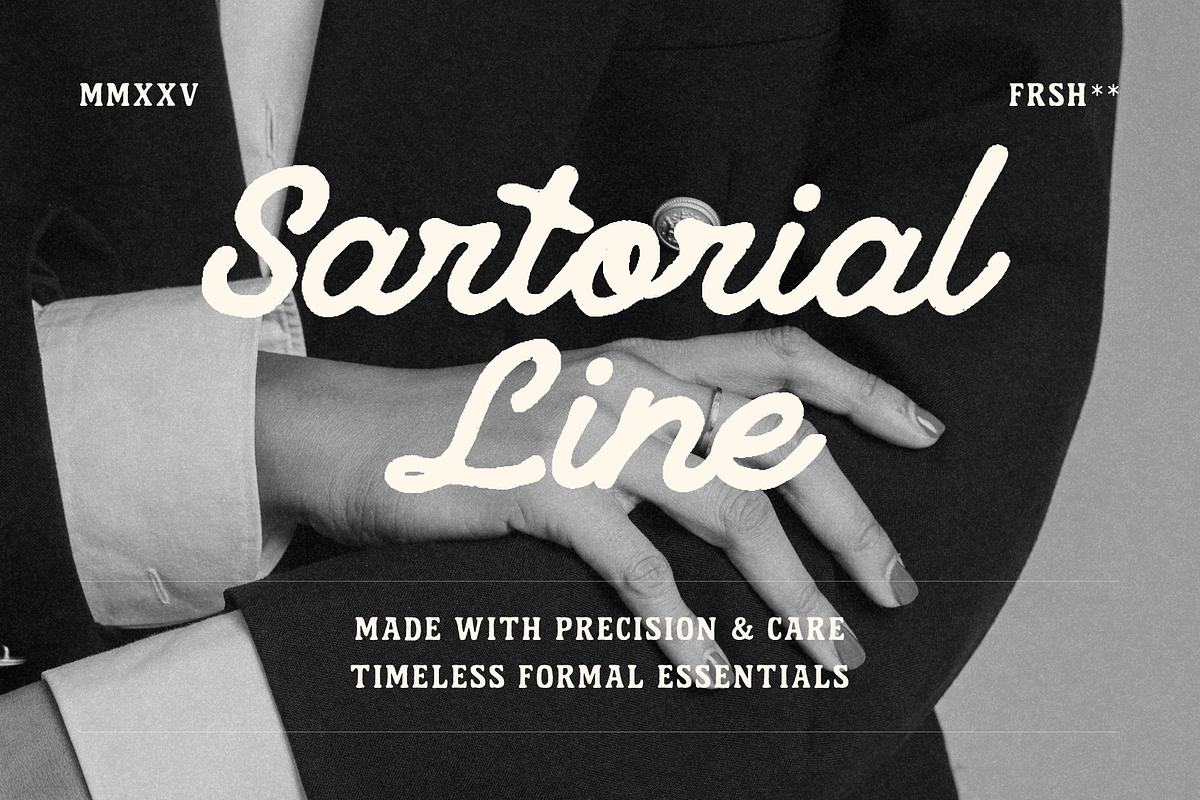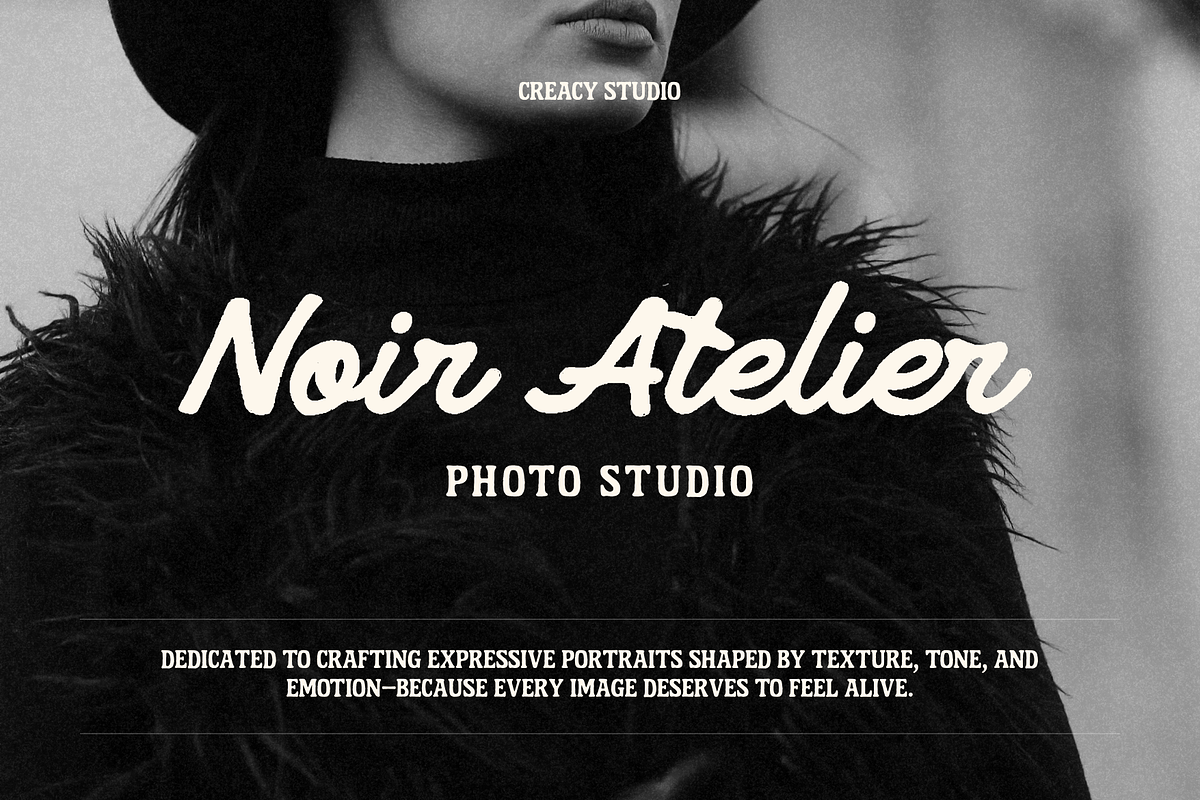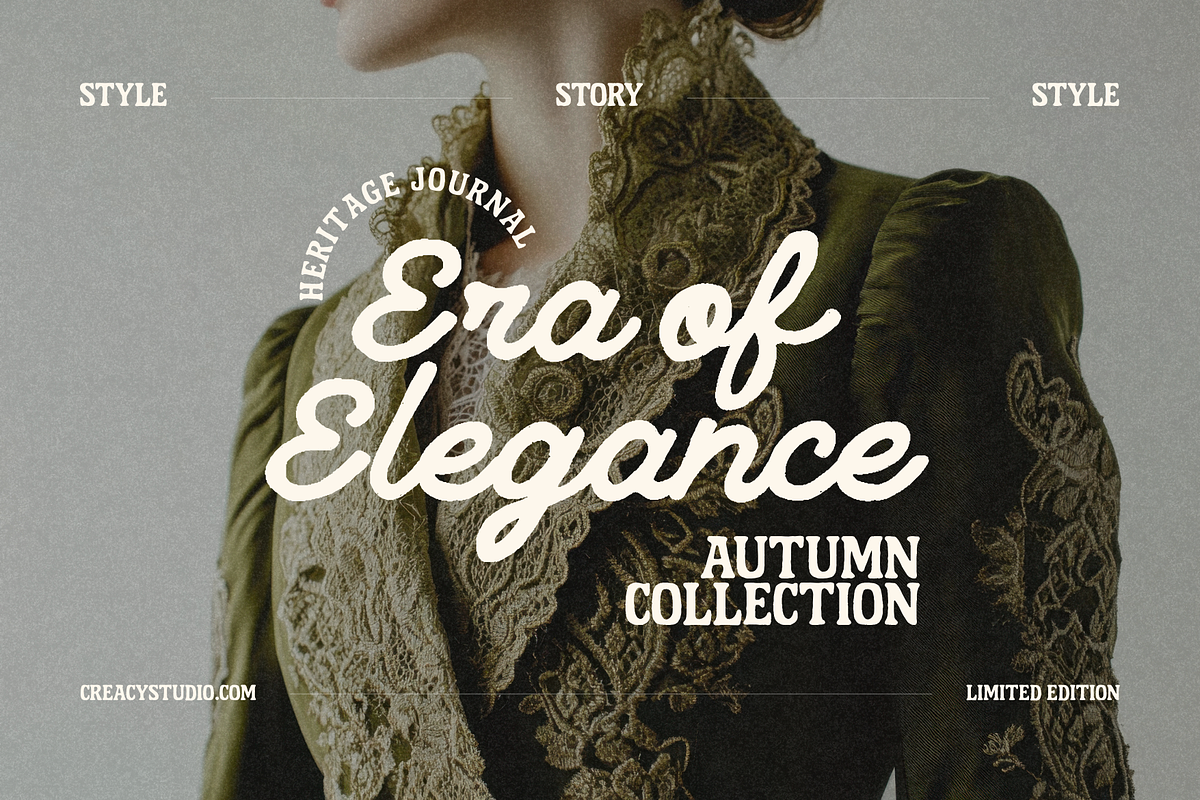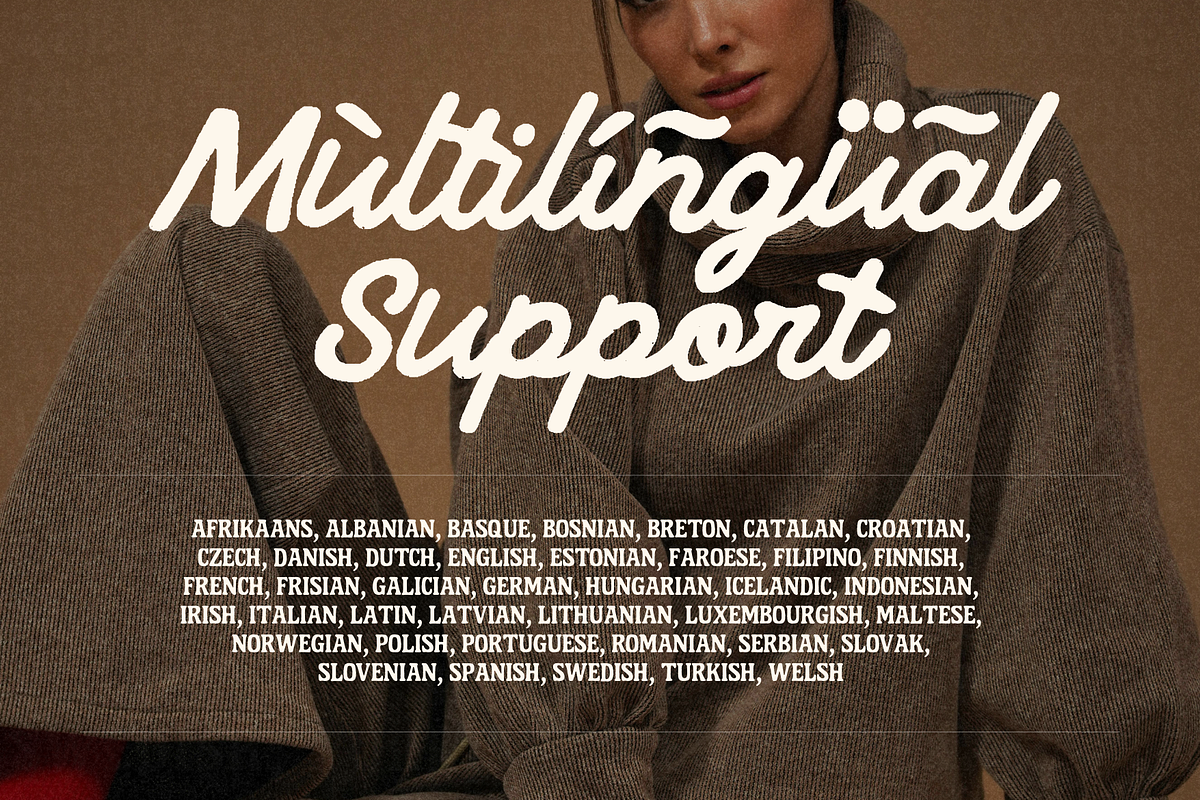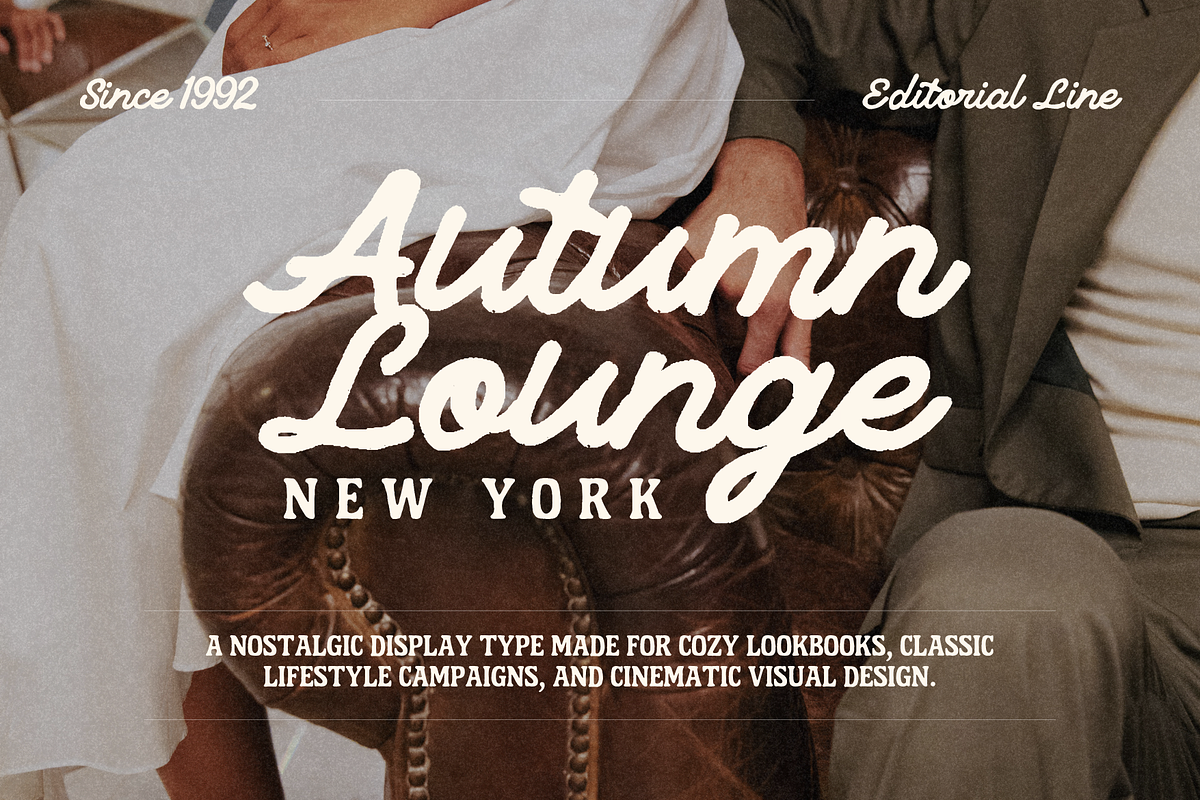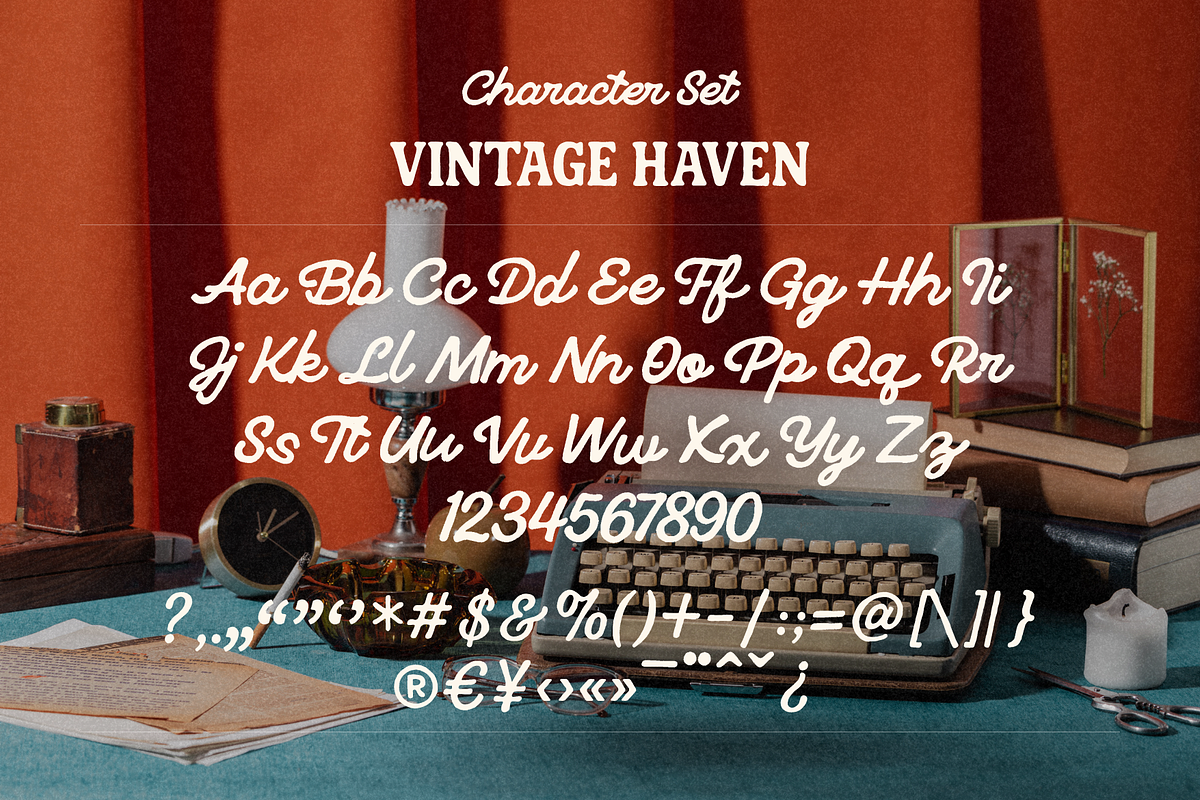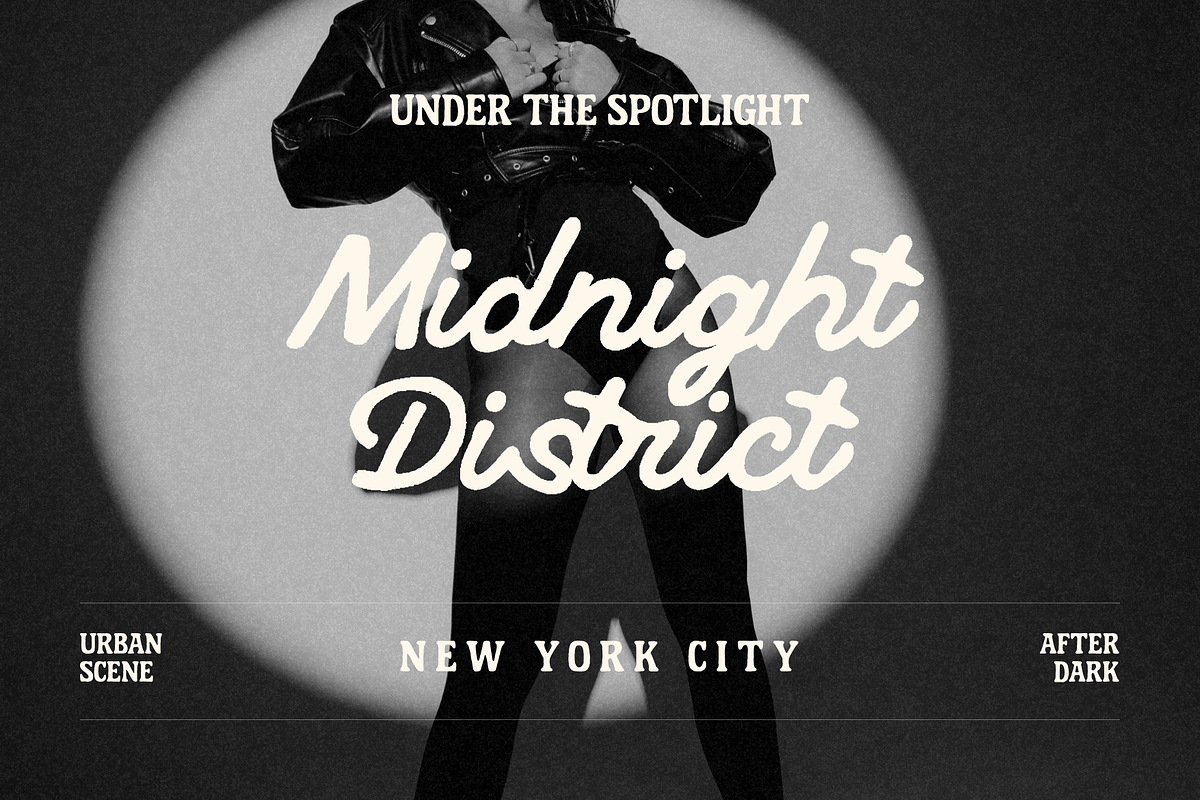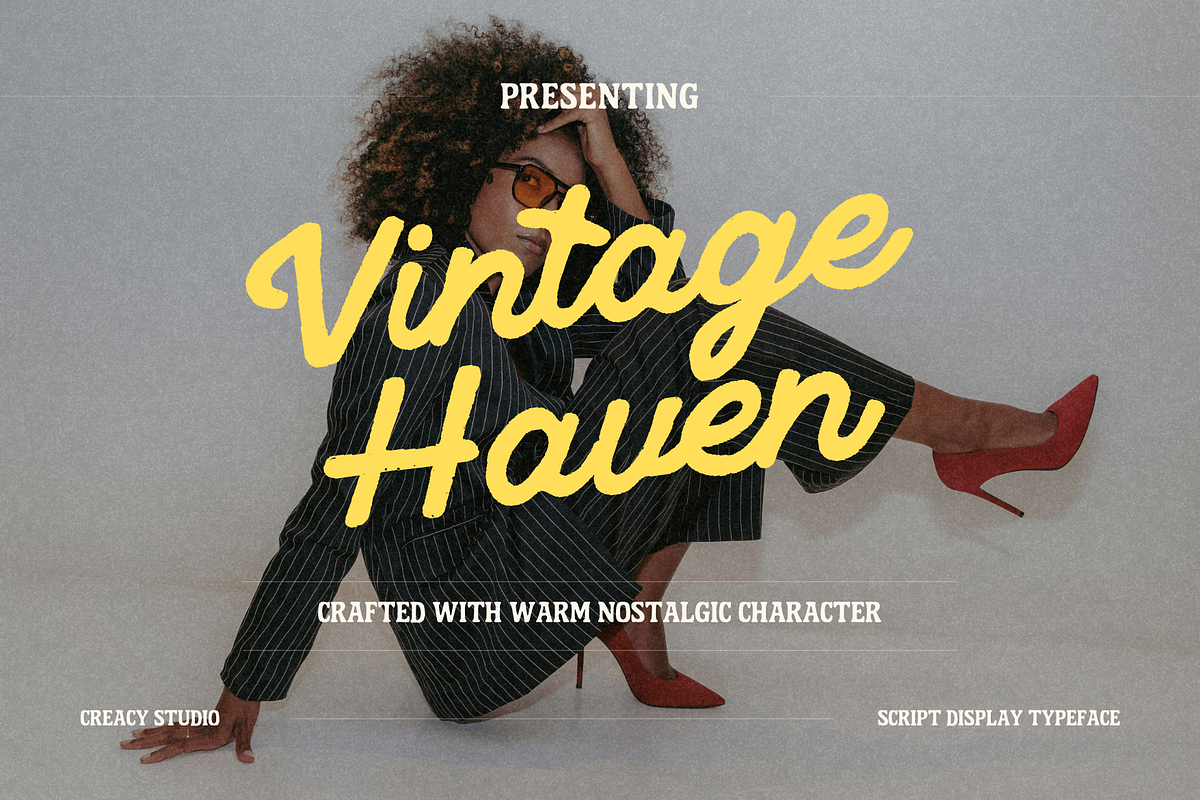
Vintage Haven – Nostalgic Script
Vintage Haven – Nostalgic Script Display Typeface
Vintage Haven is a nostalgic script display typeface crafted to bring warmth, personality, and a cinematic sense of storytelling to your visual projects. Inspired by retro editorial design, handwritten charm, and vintage lifestyle photography, this typeface blends soft cursive motion with expressive textured strokes—making it ideal for impactful headlines and emotional brand moments.
Designed for creatives who want a typeface with soul, Vintage Haven works beautifully across fashion campaigns, lookbooks, packaging, posters, social media, and refined brand identities.
- Complete uppercase & lowercase character set
- Numerals & punctuation
- Extensive multilingual support
- Smooth cursive flow with consistent retro aesthetics
- Natural textured finish for an authentic nostalgic feel
Editorial titles
Lifestyle branding
Fashion campaigns
Cinematic posters
Photography studios
Product packaging
Vintage-inspired layouts Features
Unique nostalgic script style
Clean & expressive letterforms
Authentic textured strokes
Optimized for both print & digital use
Supports multiple languages
Let Vintage Haven bring warmth, character, and timeless charm to your creative storytelling.